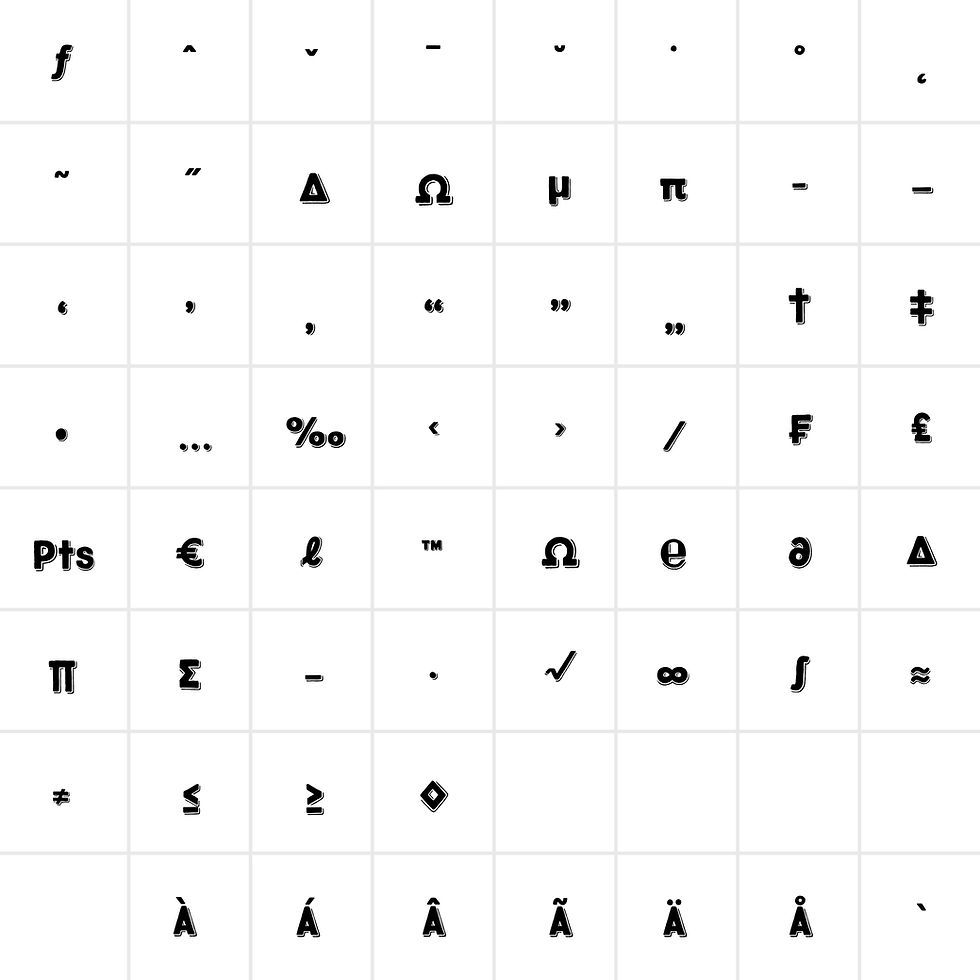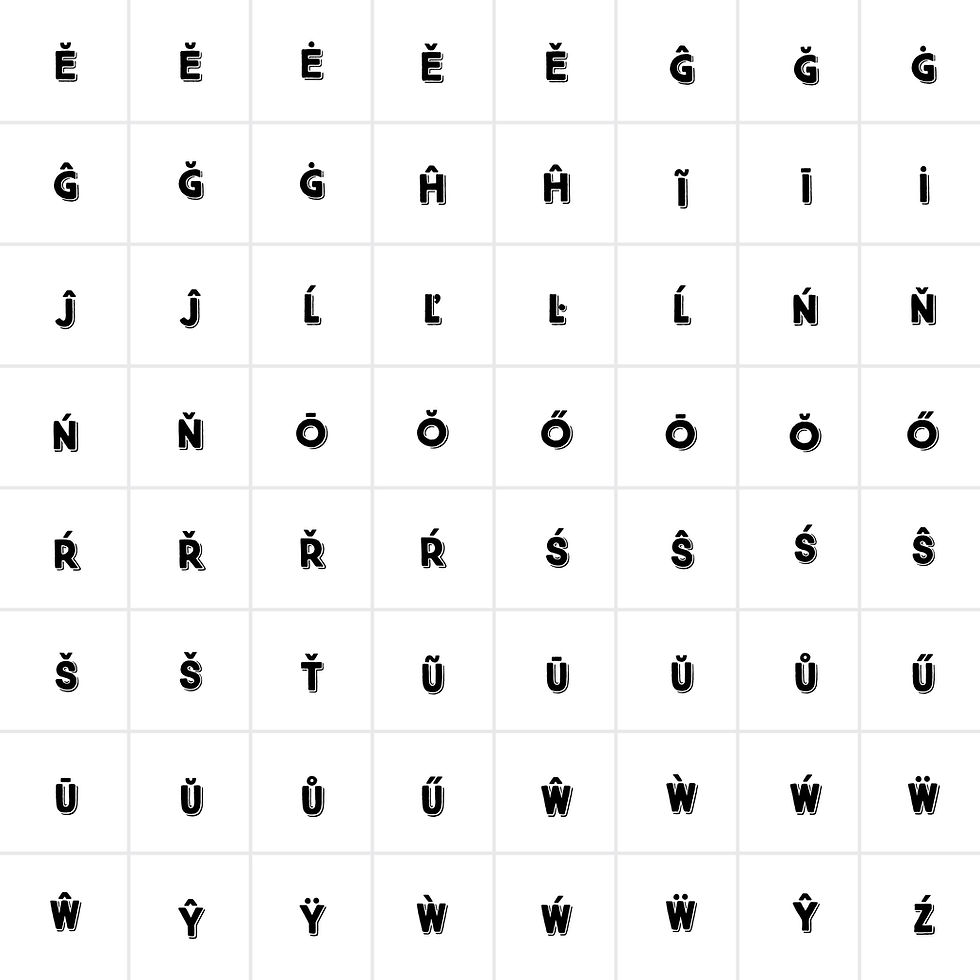
TRUE NORTH 3D BLACK FONT is a sans serif vintage inspired headline font with alternate capitals. Use True North for packaging, magazines, marketing, weddings, beer labels, film, and clothing.
True North 3D Black Font